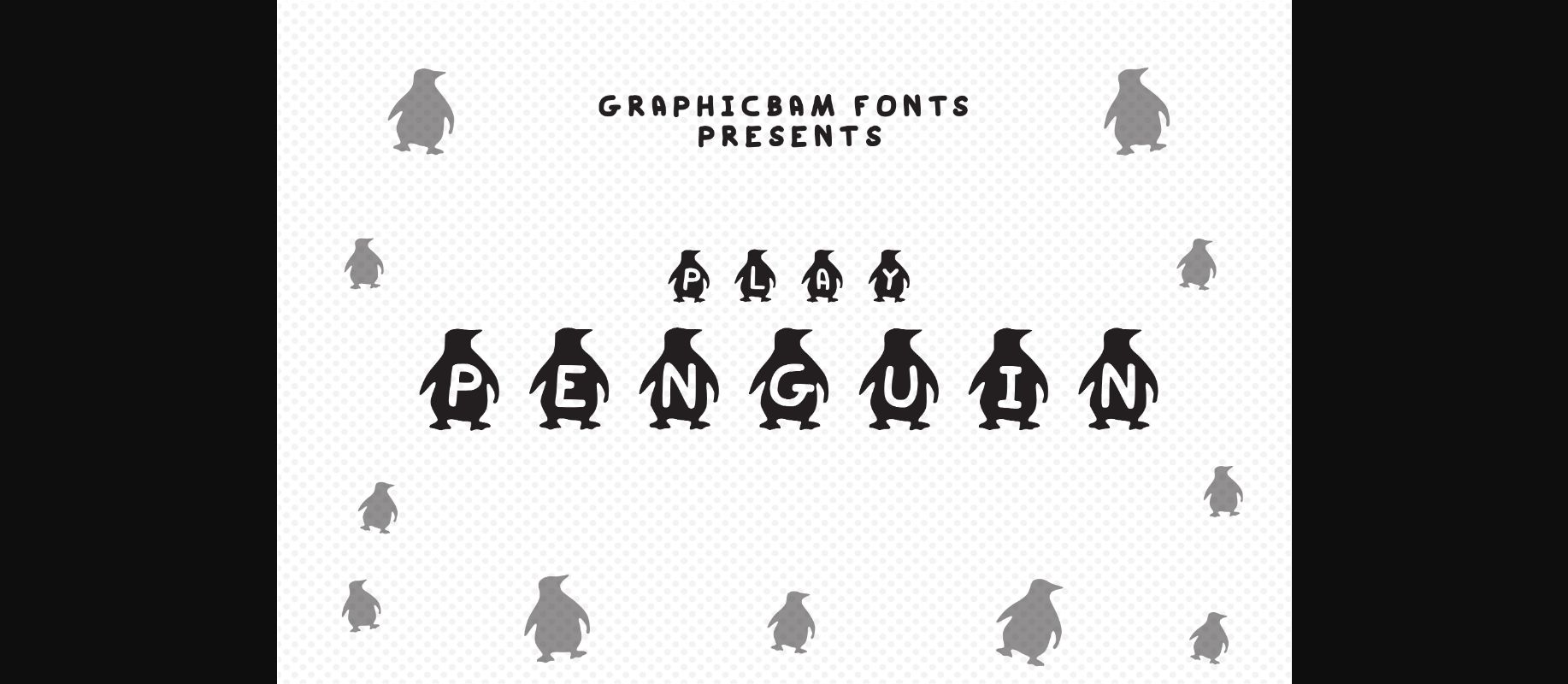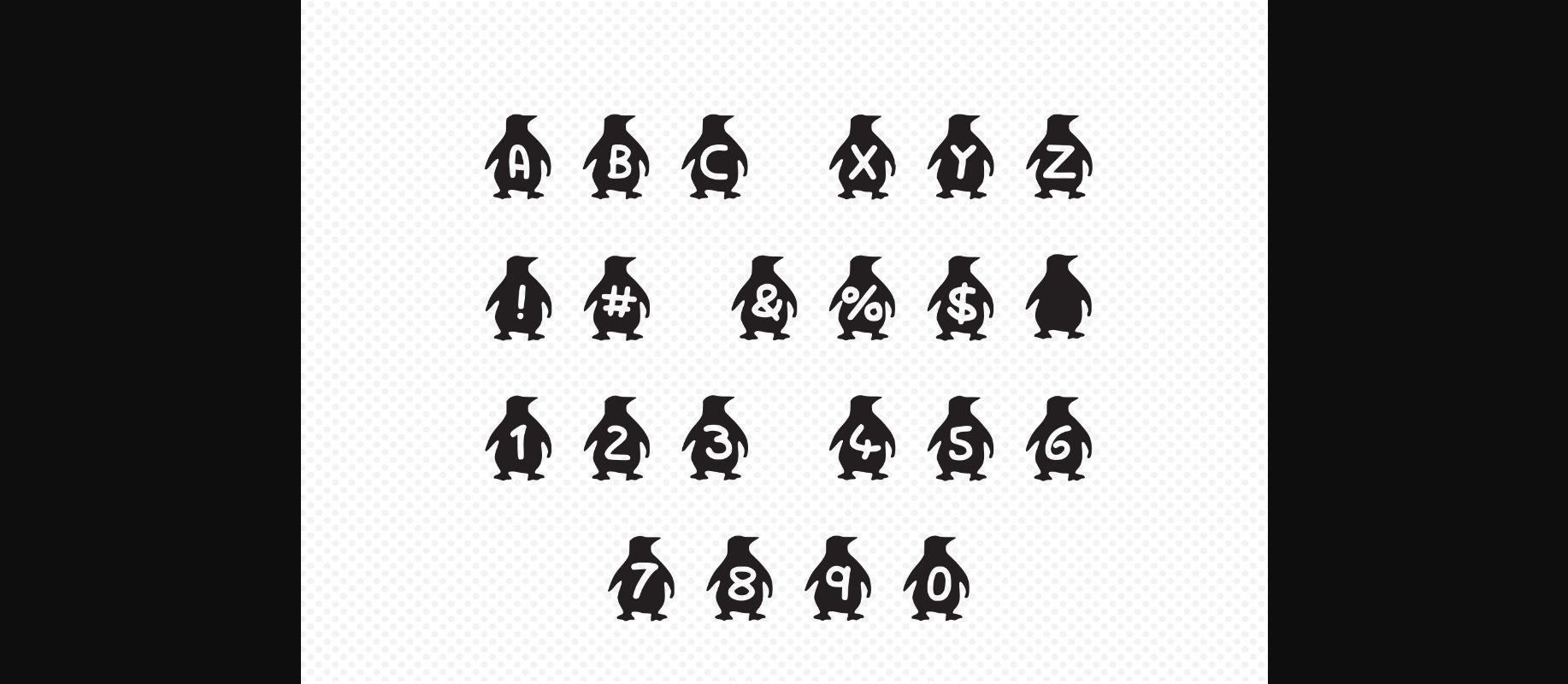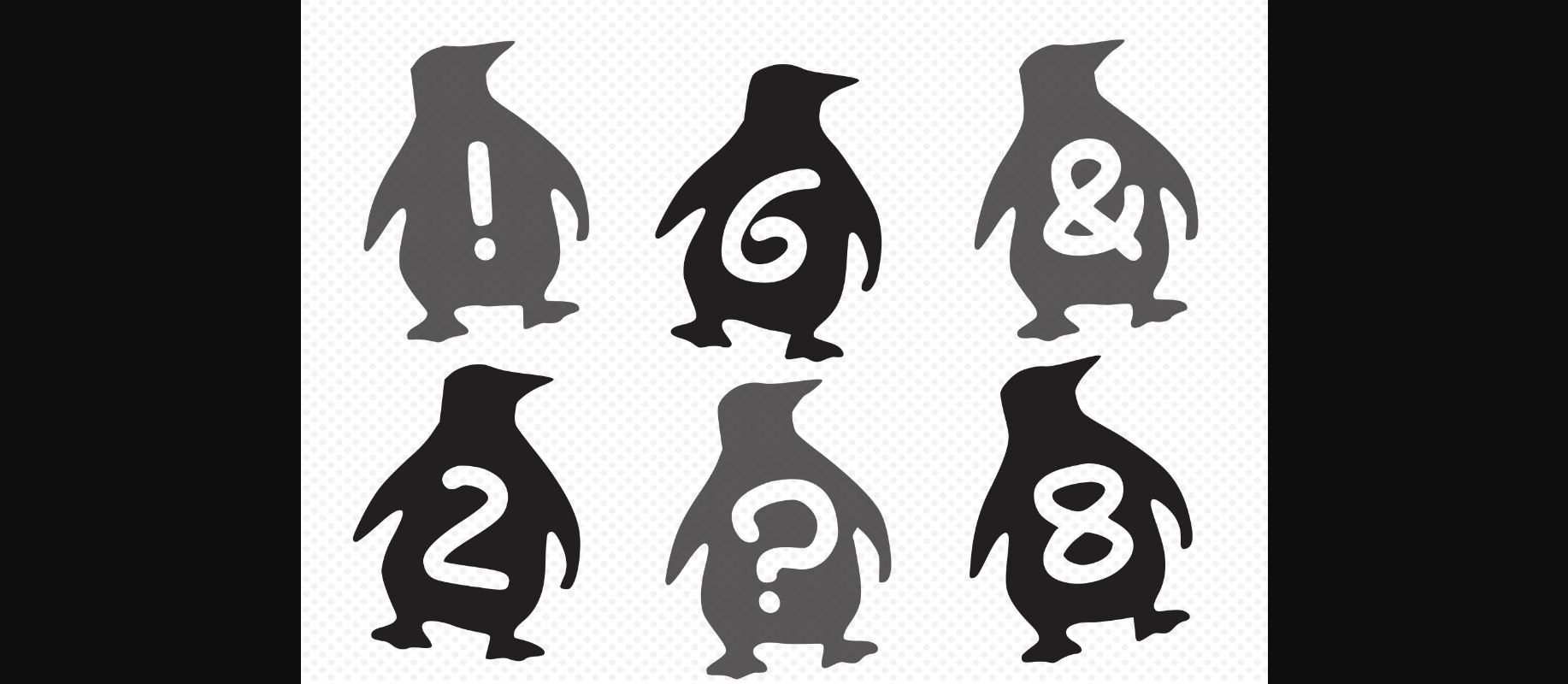
Play Penguin Font
About Play Penguin Font
Bring an arctic feel into your designs with Play Penguin – a decorative font made with cute letters inside penguin silhouettes. You will definitely love it!